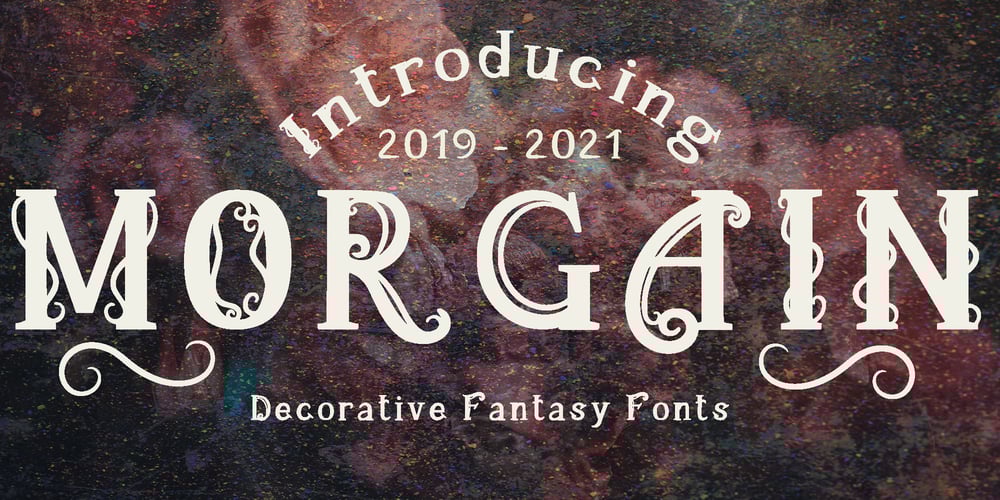
Morgain Font Family was designed by Luiza Gasparyan and published by Umbra95. Morgain contains 1 styles and family package options. Morgain is a decorative vintage font with “celtic spirit”. Morgain Is an experimental font, specific shapes and forms gives it a little hand-painted effect.